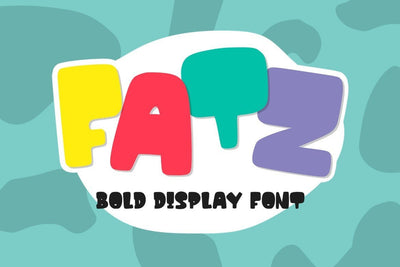
Fatz – Bold Font
Introducing Fatz – Bold Font
Fatz is the perfect font for all your fun designs. The main font file is equipped with ordinary characters. Everything is made with the bold and smooth brush, and everything is the same size as Fatz, so you can be sure they will work well together! It is suitable for you to use in making t-shirt design, quote, label, packaging, logo type, or long writing. Because we have compiled kerning and matrices that are tailored to your needs.